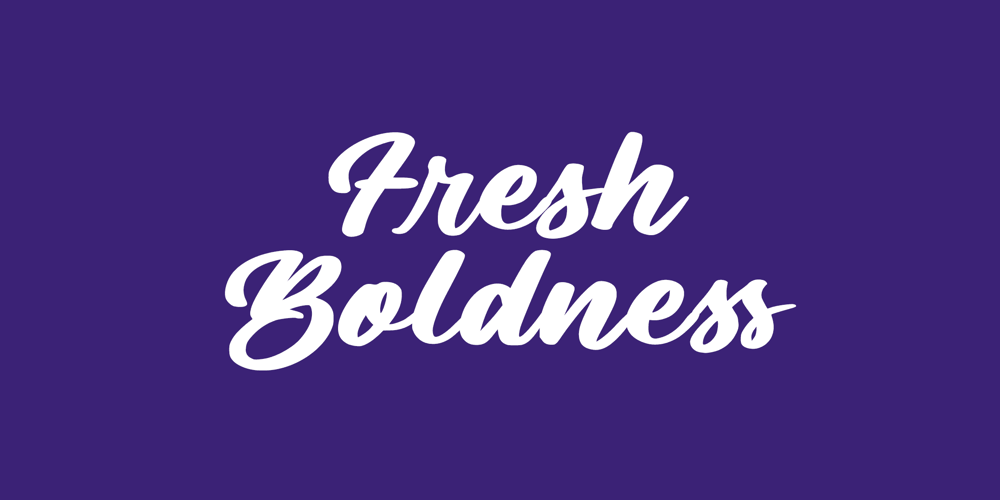
Fresh Boldness Font Family was designed by Winarno, Eko Kurniawan and published by Enbe Studio. Fresh Boldness contains 1 styles and family package options. Exploring the world of typography, one might come across a variety of bold script fonts that exude freshness and confidence. These fonts are perfect for designers looking to add a touch of personality and boldness to their work. With styles ranging from the elegant calligraphy of Fresh Script to the more playful and modern designs, there’s a bold script font to suit every creative need. Whether for branding, invitations, or advertising, these fonts can make a statement and capture attention.Have a lucky day!:)